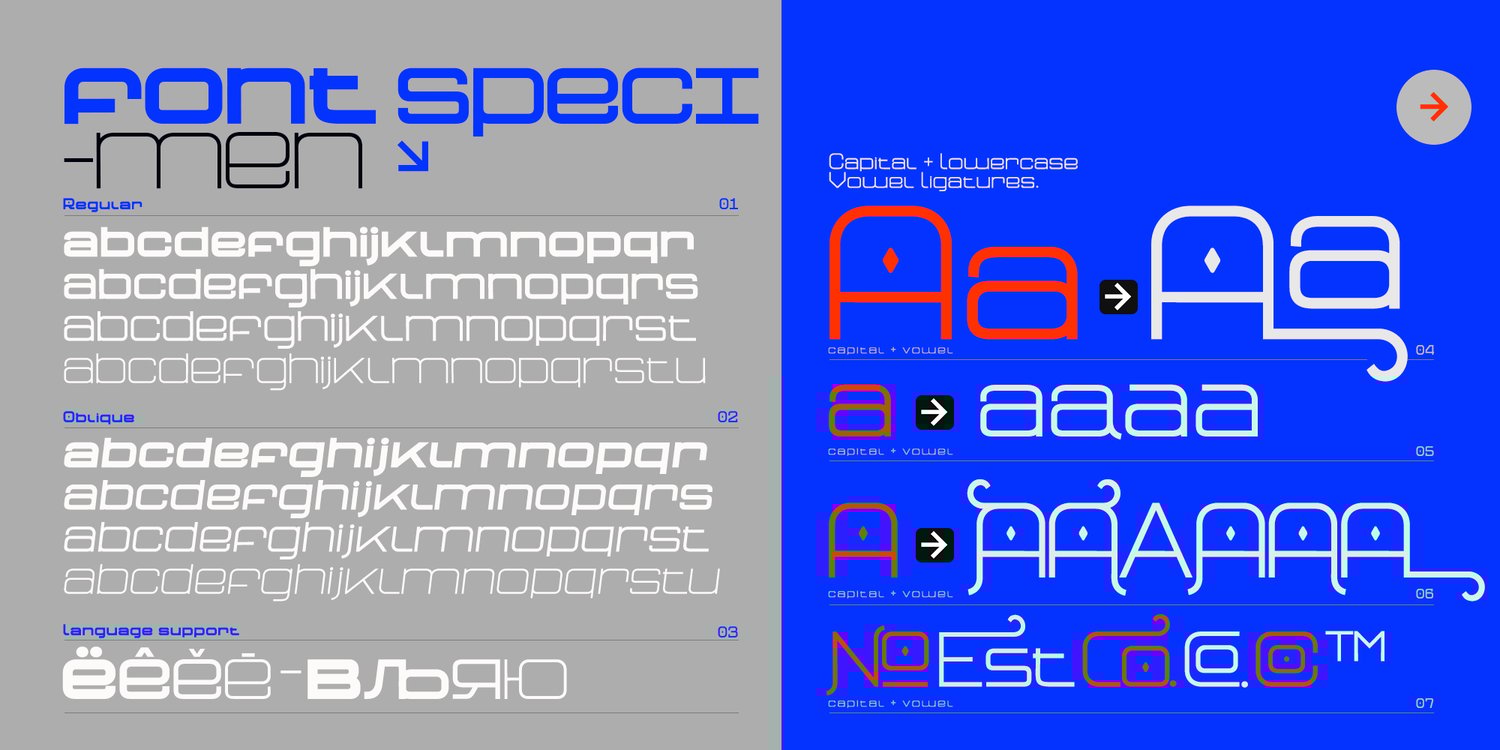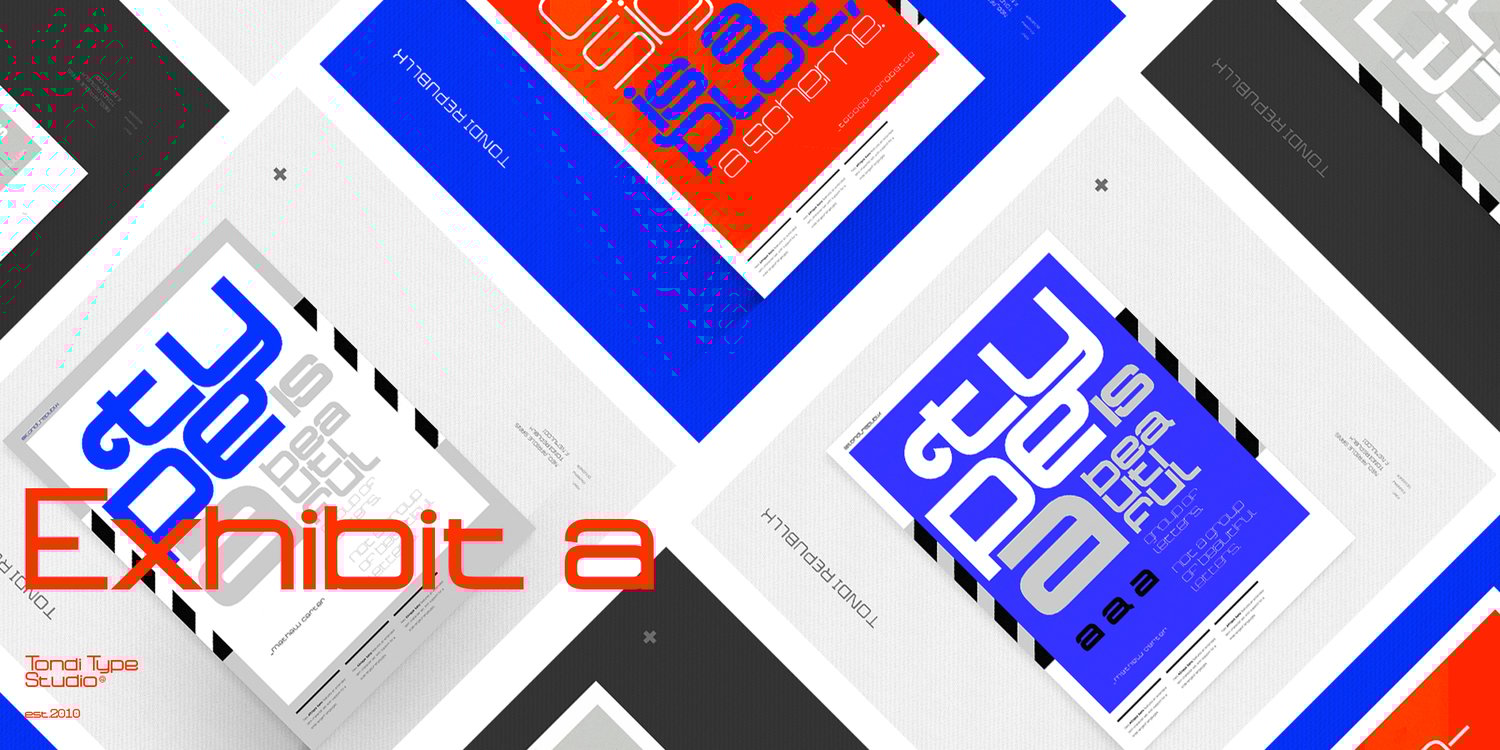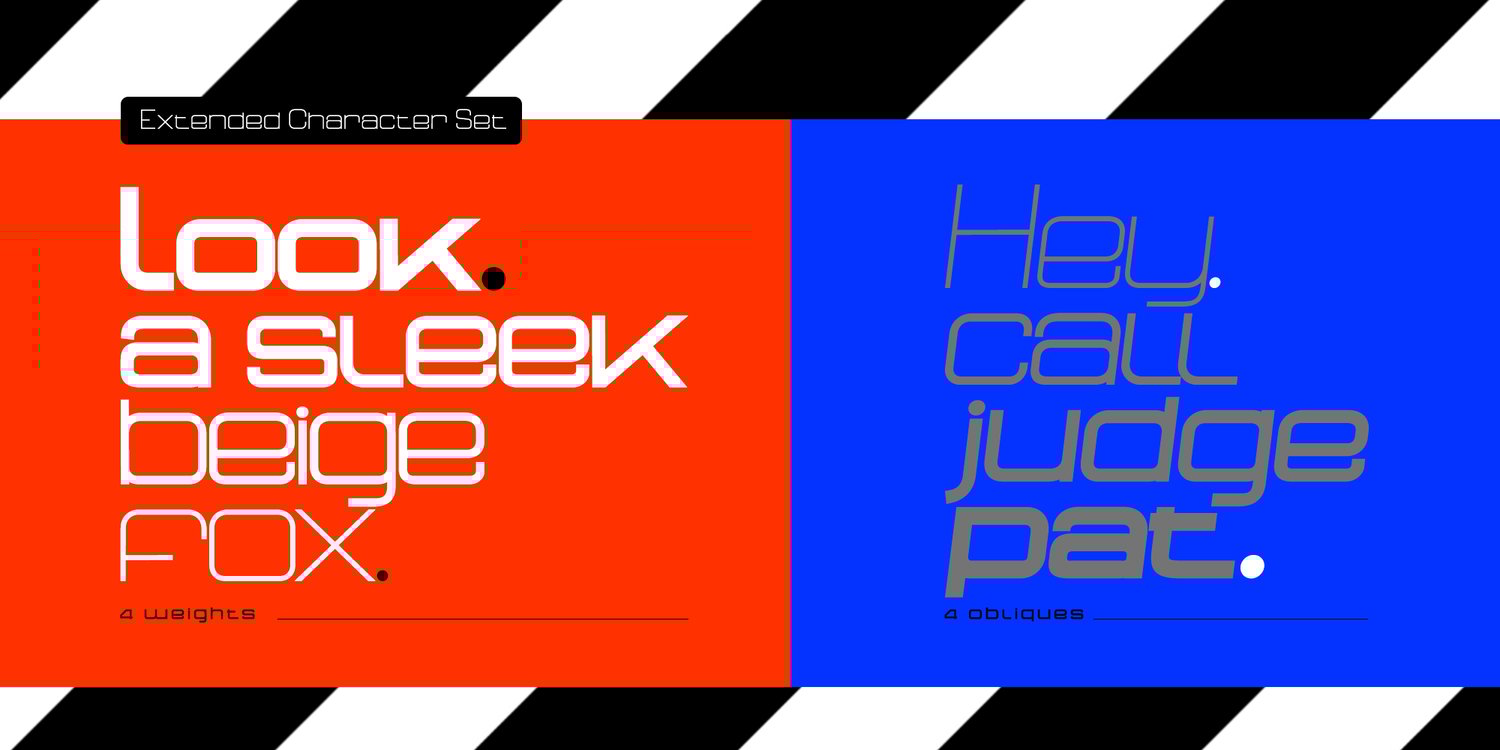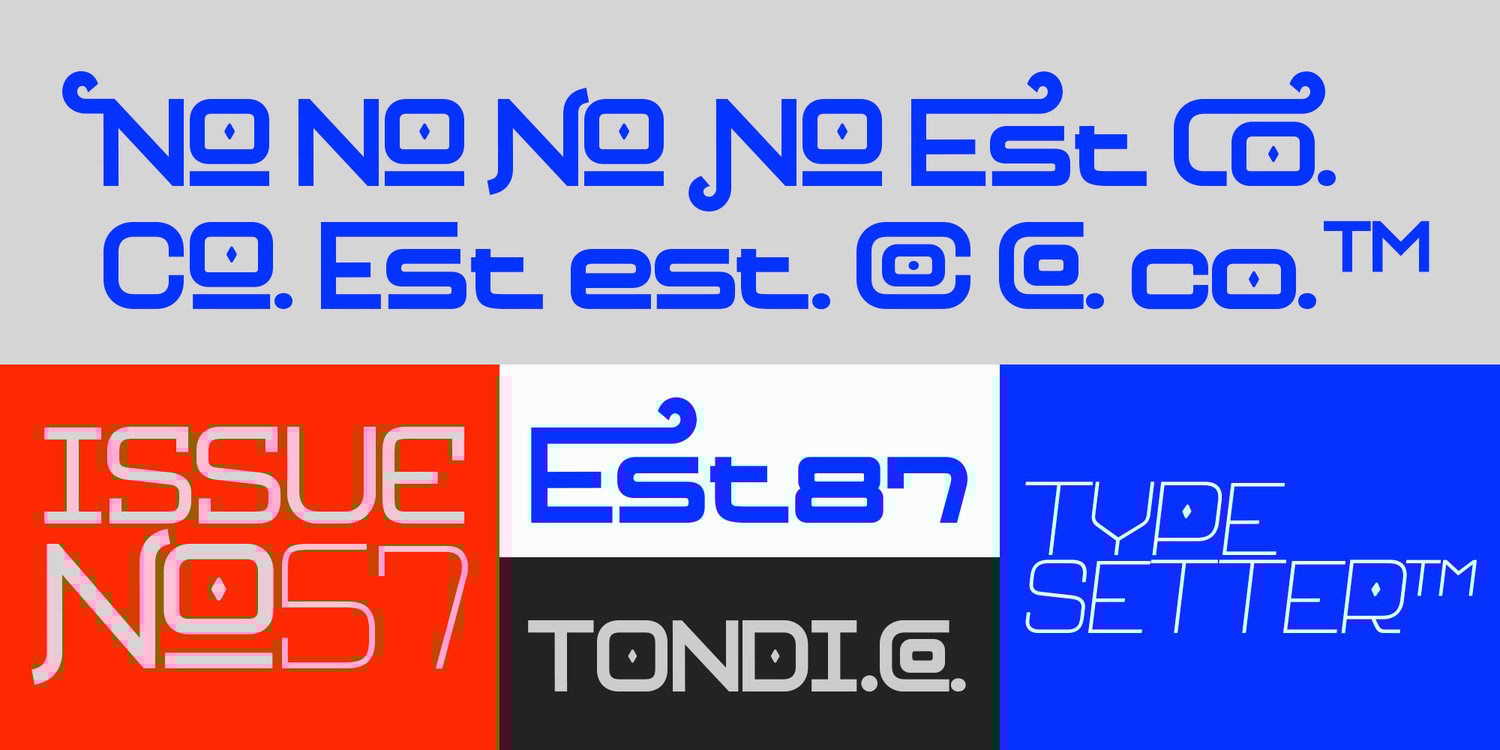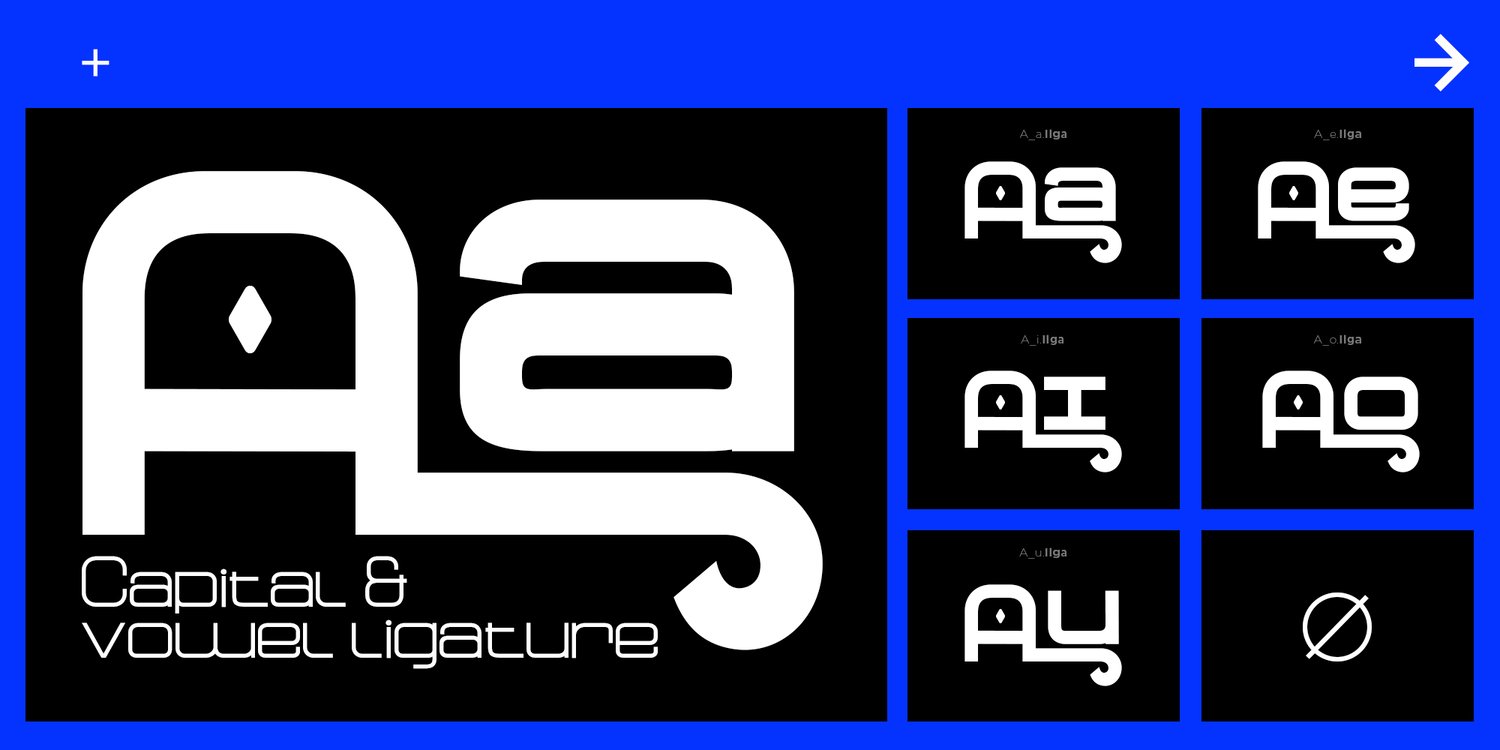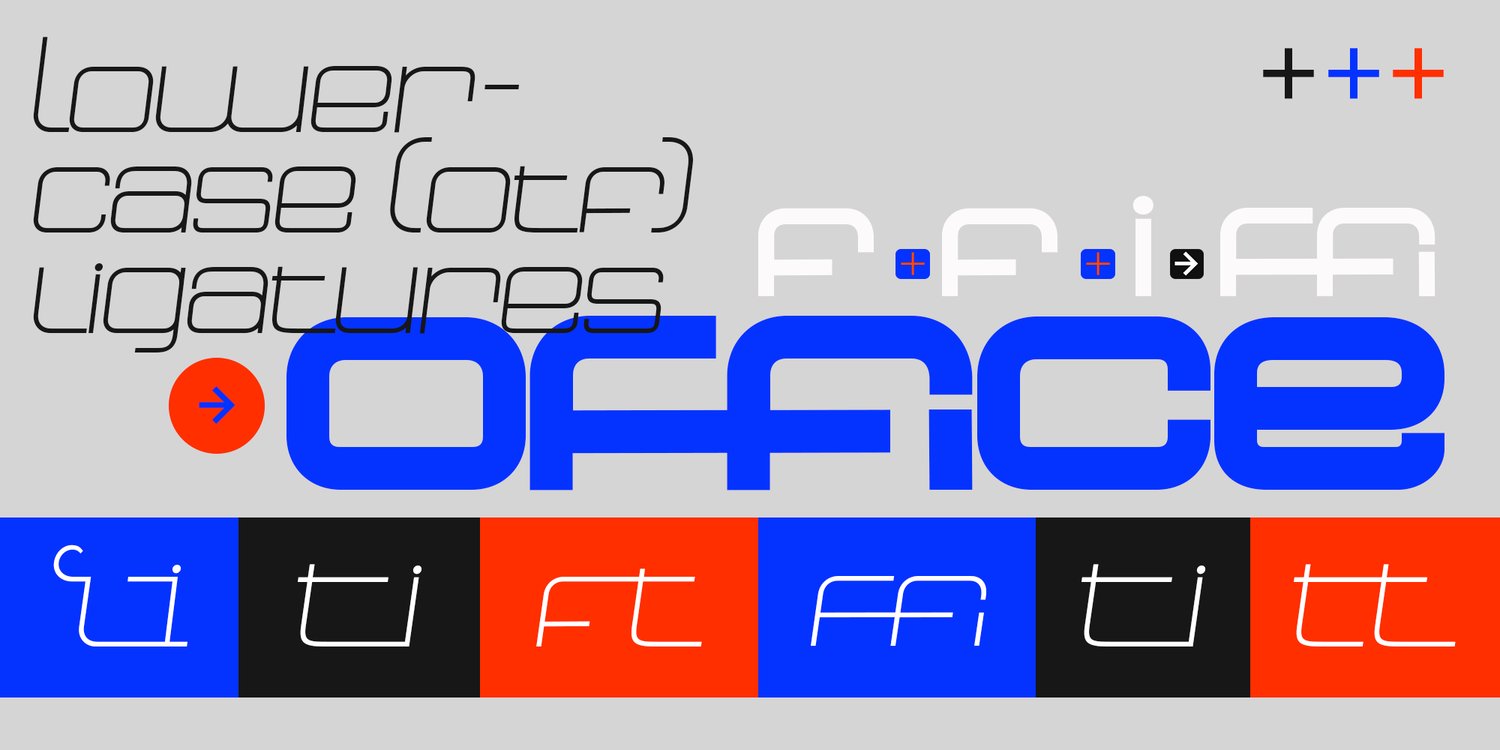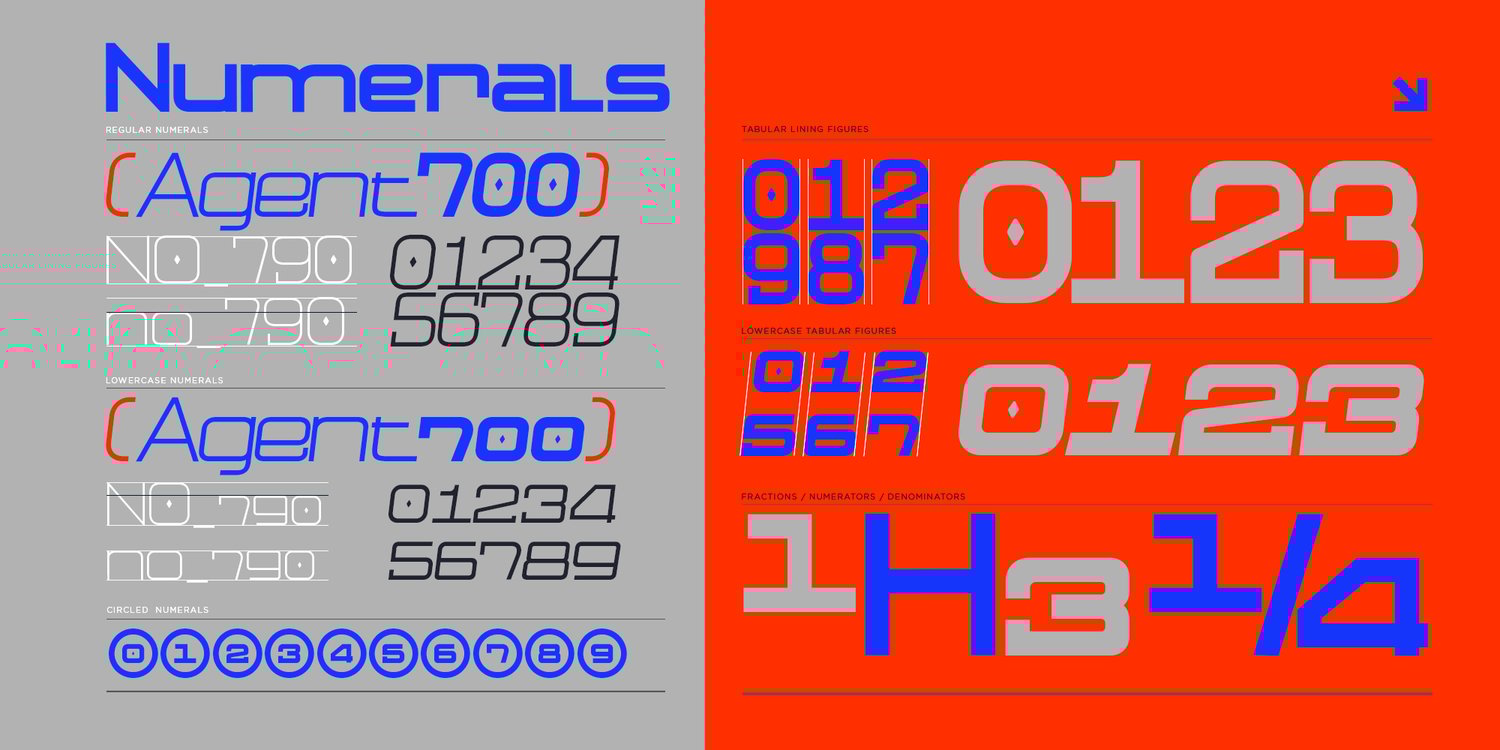
Neo Afrique Pro
Introducing Neo Afrique Pro: Unveiling Neo-Futuristic Elegance with a Decorative Twist
Discover Neo Afrique Pro, a cutting-edge typeface that seamlessly combines a neo-futuristic aesthetic with a modern decorative twist. This font is more than just an update; it's a bold evolution from its predecessor, Neo Afrique Sans.
Staying true to its roots, Neo Afrique Pro emerged from the desire to blend two distinct aesthetics. It harmoniously fuses the geometric Neo-Futuristic style with the ornate decorative forms inspired by Art Nouveau and the later Lubalinesque aesthetics.
This typeface is not just a font; it's part of a larger creative endeavor. Neo Afrique Pro will play a significant role in an extensive exploration of Afrikan neo-futurism, leveraging the potent combination of visual and linguistic narratives. The aim is to catalyze a new cultural movement and reshape perceptions through powerful design elements.
Embark on a visual journey with Neo Afrique Pro as we redefine neo-futurism in the Afrikan context. This typeface isn't just a font; it's a catalyst for cultural evolution.